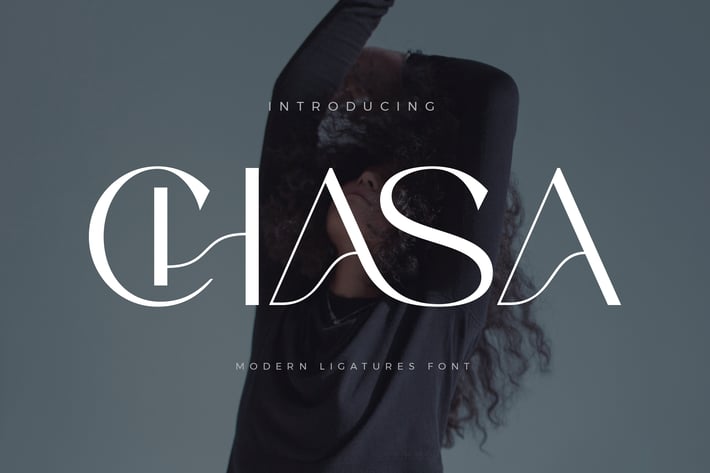
Chasa Elegant Sans Serif Font
Chasa Sans Font Typeface inspired by the famous minimalist logo perfect for the purposes of designing templates, brochures, videos, advertising branding, logos, invitation, layout design, elegant crafting, beauty design and other.